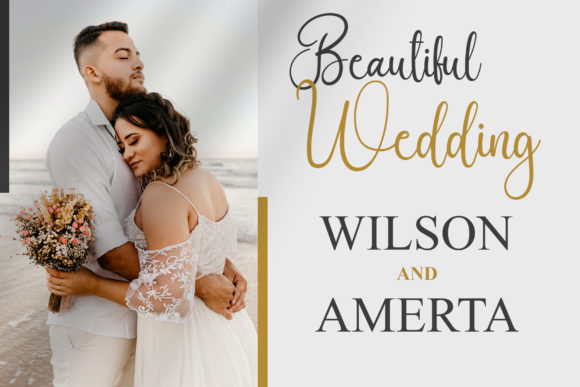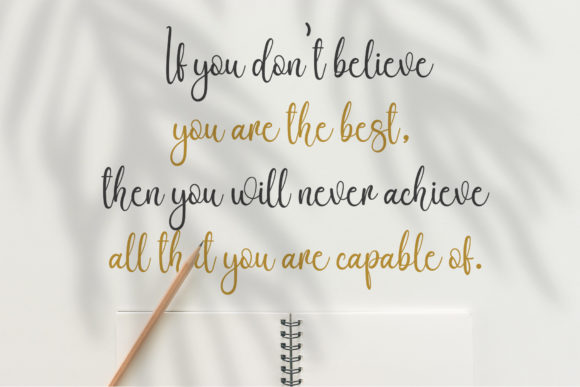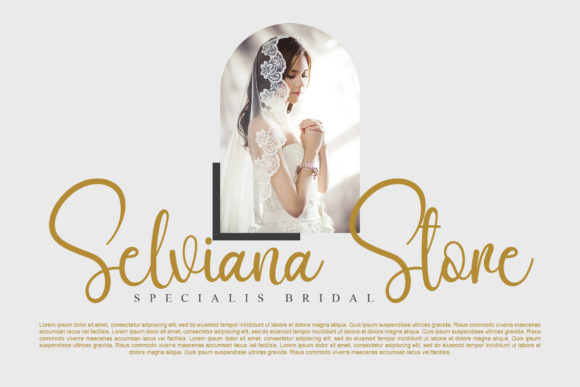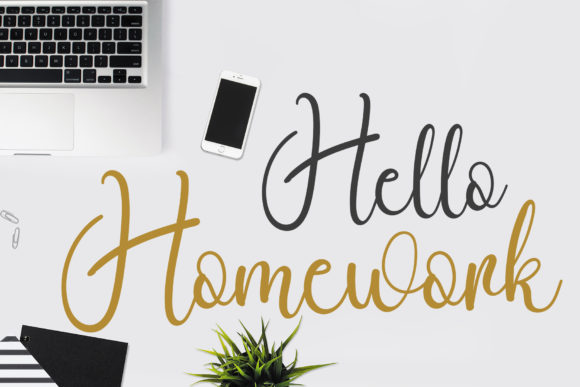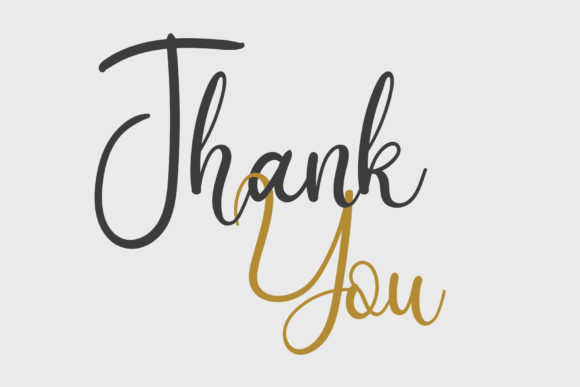
Introducing Amerta Signature Font: Elevate Your Designs with Elegance and Class
In the world of typography, a well-crafted font can make all the difference in transforming a design from ordinary to extraordinary. For designers and crafters seeking to infuse their creations with a touch of sophistication and refinement, Amerta Signature Font is an exceptional choice. This lovely and delicate script font is specifically designed to exude elegance and class, making it perfect for projects that demand a beautiful and refreshing aesthetic.
The Beauty of Amerta Signature Font
Amerta Signature Font is a meticulously crafted typeface that boasts a unique blend of fluidity and precision. Its delicate strokes and intricate details create a sense of movement and harmony, making it ideal for designs that require a touch of luxury and poise. Whether you’re working on a branding project, wedding invitation, or packaging design, Amerta Signature Font is sure to leave a lasting impression.
Key Features of Amerta Signature Font
- Elegant and Refined: Amerta Signature Font features a sophisticated and elegant design that’s perfect for high-end projects.
- Delicate Strokes: The font’s delicate strokes and swashes add a touch of luxury and refinement to any design.
- Versatile: Amerta Signature Font can be used for a wide range of projects, from branding and advertising to packaging and wedding invitations.
- Easy to Read: Despite its delicate nature, Amerta Signature Font remains highly legible, making it perfect for body text and headlines.
Amerta Signature Font is an excellent choice for designers and crafters looking to elevate their creations with a touch of elegance and sophistication. Whether you’re a seasoned professional or just starting out, this font is sure to inspire your next project. With its versatility and beauty, Amerta Signature Font can be used to create stunning designs that leave a lasting impression.
Tips for Using Amerta Signature Font
To get the most out of Amerta Signature Font, here are a few tips to keep in mind:
- Pair with a Sans-Serif Font: Combine Amerta Signature Font with a clean sans-serif font to create a striking contrast.
- Use for Headlines and Titles: Amerta Signature Font is perfect for headlines and titles, where its elegance and sophistication can shine.
- Experiment with Swashes: The font’s swashes can add a touch of drama and flair to your designs – experiment with different combinations to find the perfect look.
In conclusion, Amerta Signature Font is a stunning script font that offers a unique blend of elegance, class, and versatility. Whether you’re a designer, crafter, or simply someone looking for a beautiful font to enhance your projects, Amerta Signature Font is an exceptional choice. With its delicate strokes, intricate details, and ease of use, this font is sure to become a staple in your design arsenal.